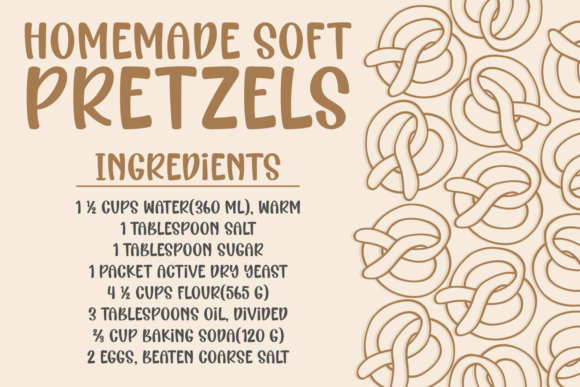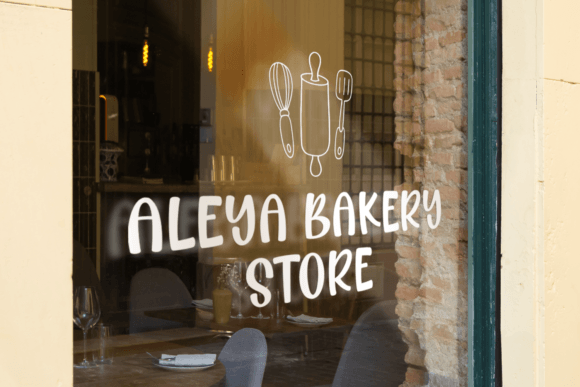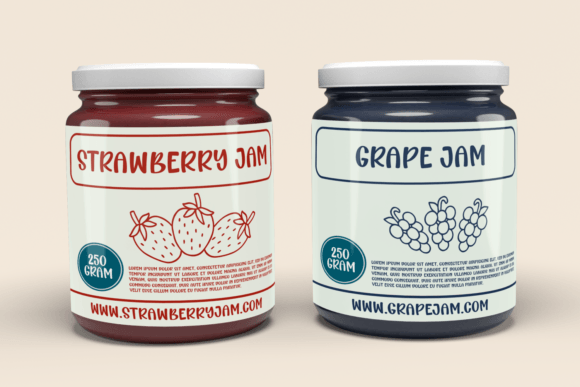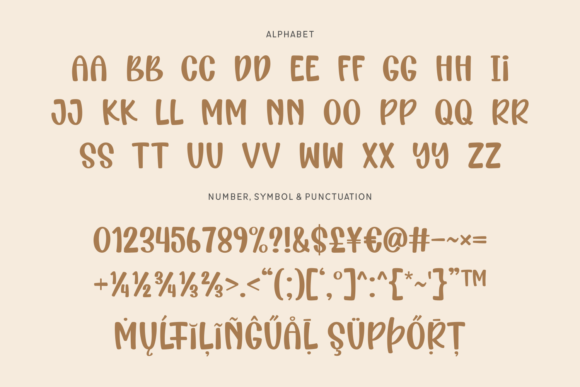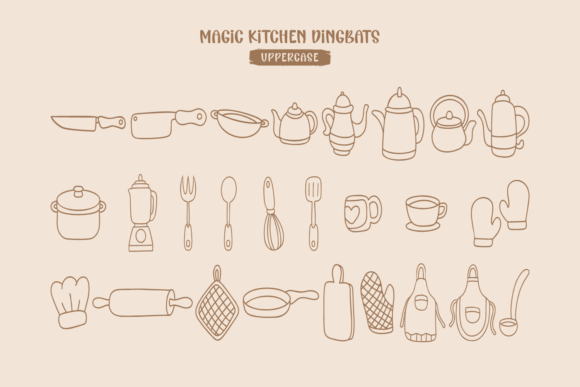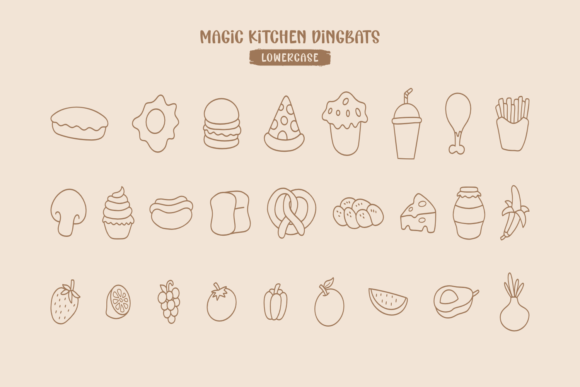
Introduction to Magic Kitchen Font
Magic Kitchen is the epitome of style and modernity in display fonts.
Its bold and clean lines make a statement that is both sophisticated and attention-grabbing, perfect for advertising, editorial layouts, and branding Elevate your designs with the sleek and contemporary look of โMagic Kitchenโ.
Key Features of Magic Kitchen Font
Why Choose Magic Kitchen Font?
Magic Kitchen Font offers exceptional quality and versatility, making it a valuable addition to your design toolkit. Whether you’re creating for personal projects or commercial use, Magic Kitchen Font delivers professional results.